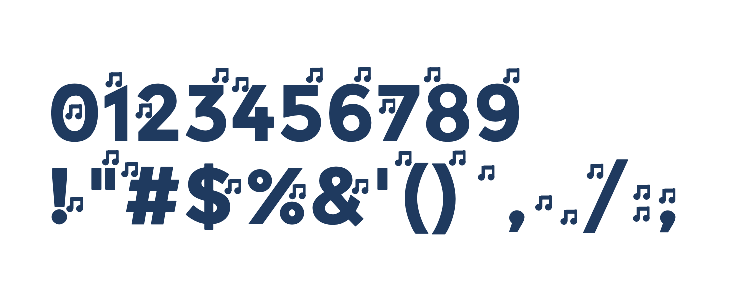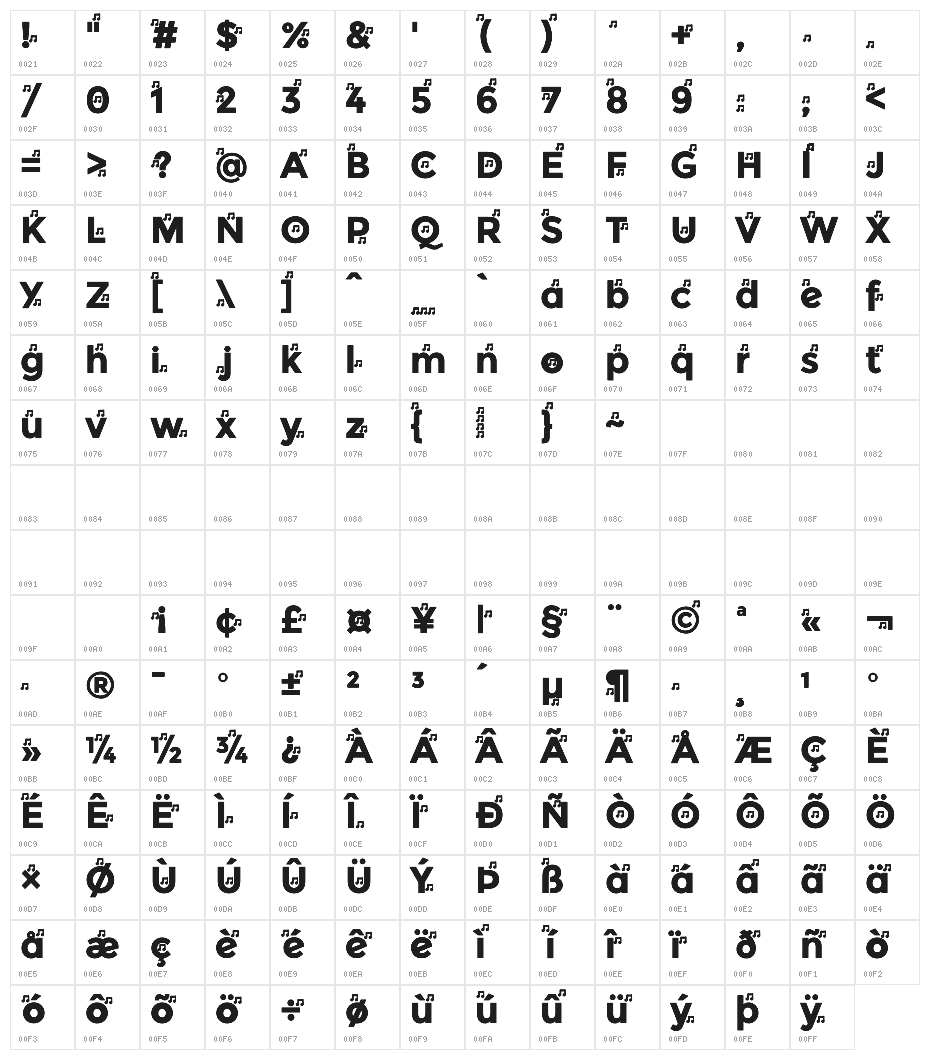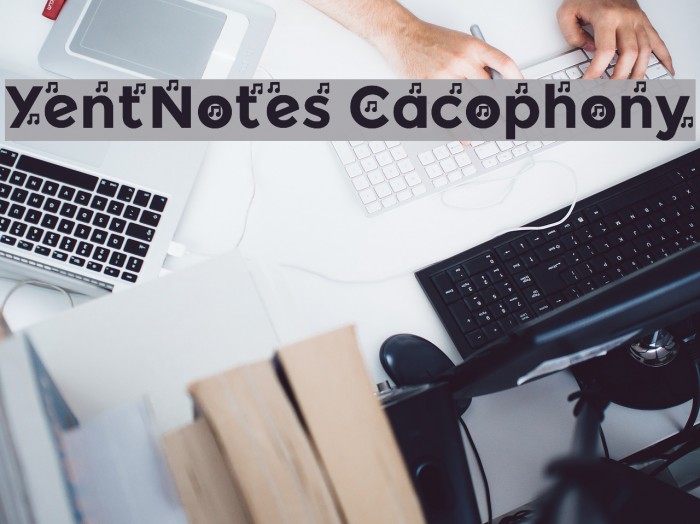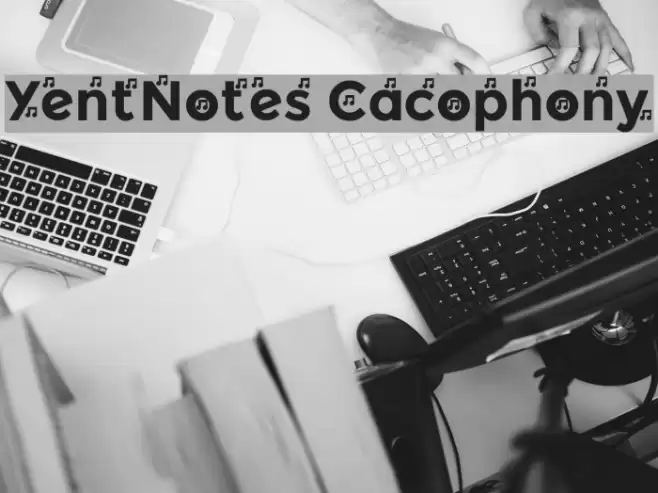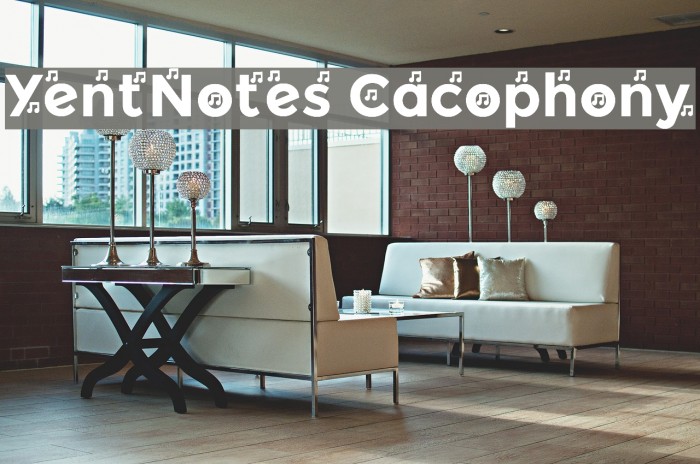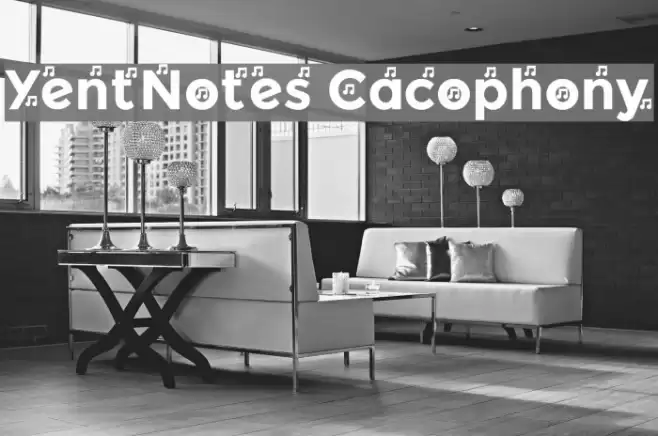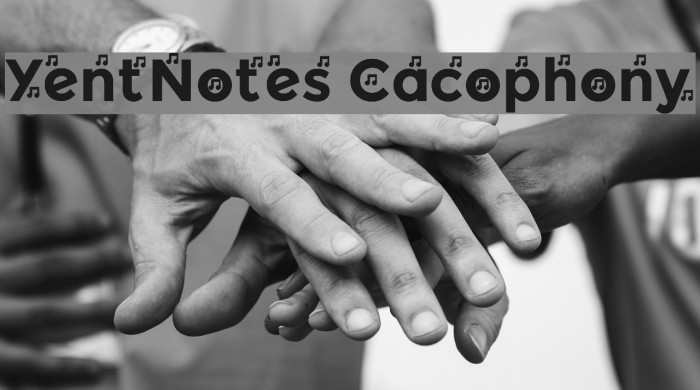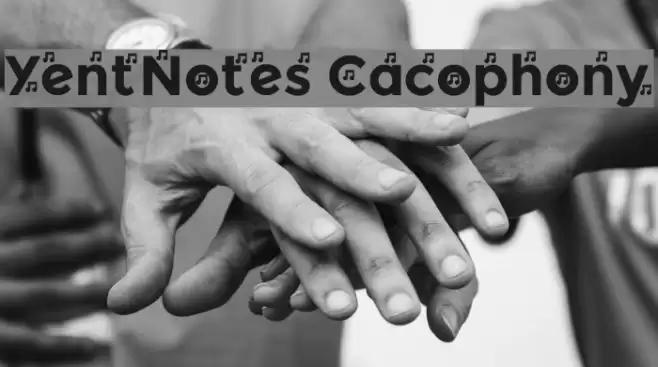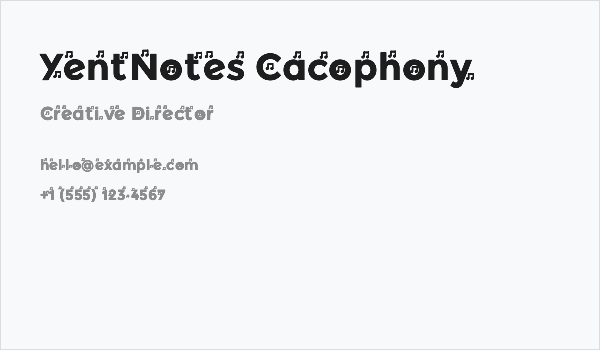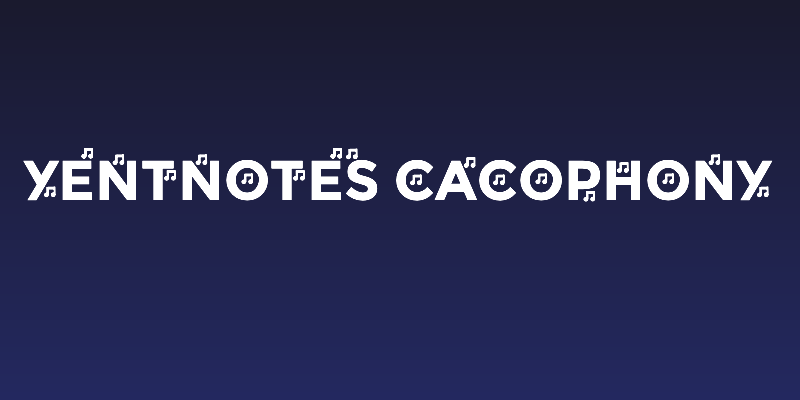
YentNotes Cacophony Font
YentNotes Cacophony Description
This playful and bold font features musical notes integrated into each character, creating a lively and whimsical appearance. The letters are bold and rounded, with a consistent thickness that gives them a strong presence. The musical notes add a unique decorative element, making it ideal for creative projects that require a fun and energetic vibe. The font maintains a uniform structure across uppercase, lowercase, and numerical characters, ensuring readability while adding a touch of musical flair. Its distinct style makes it stand out, perfect for projects that aim to capture attention and convey a sense of joy and creativity.
| Overall Style | Playful, Creative |
| Proposed Projects | Ideal for music-themed posters, children's books, playful branding, and event invitations. |